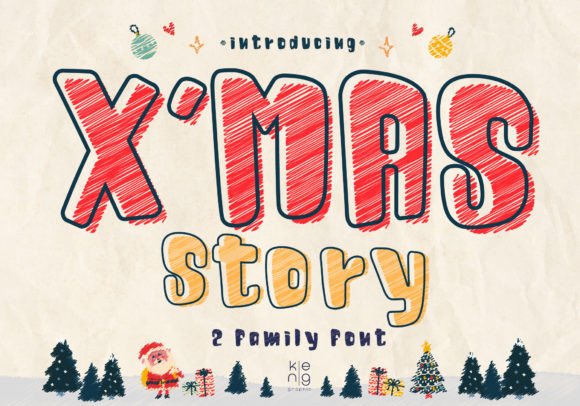
Journey into the whimsical world of Xmas Story font, a captivating display font that breathes life into your creative endeavors. Its playful and energetic style commands attention, transforming ordinary text into captivating expressions. Picture your designs bursting with personality, demanding attention with every stroke.
With Xmas Story font, you unlock a universe of possibilities. Create comic strips that leap off the page, their vibrant characters brimming with emotion. Craft online games that immerse players in fantastical realms. Design cards and love shirts that ignite smiles, spreading joy wherever they go.
Unleash your creativity with Xmas Story font and watch as your posters and movie titles captivate audiences. Imagine captivating social media posts that dance before the eyes, demanding engagement. Elevate your branding with a font that reflects your youthful spirit and courageous heart.
Xmas Story font is the perfect canvas for expressing your unique style. Its versatility knows no bounds, adapting seamlessly to a myriad of creative projects. Whether you're a seasoned designer or embarking on your creative journey, this font will empower you to make a bold statement.
Don't settle for ordinary fonts. Embrace the magic of Xmas Story font and transform your designs into captivating masterpieces. Let your imagination run wild as you explore the endless possibilities this font offers.